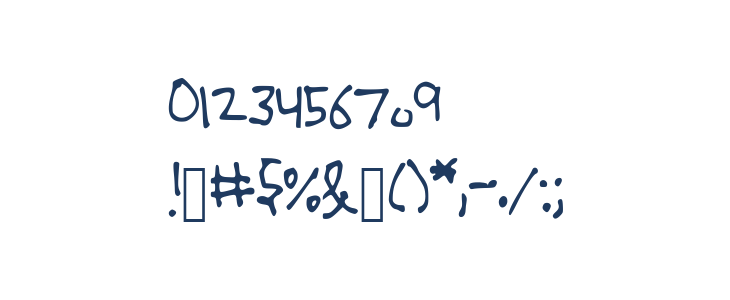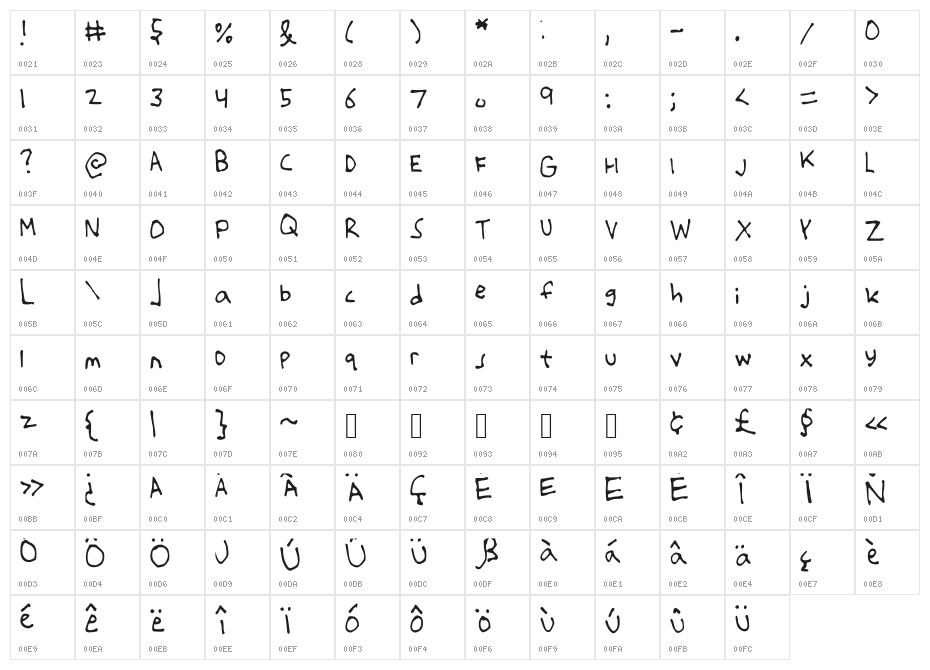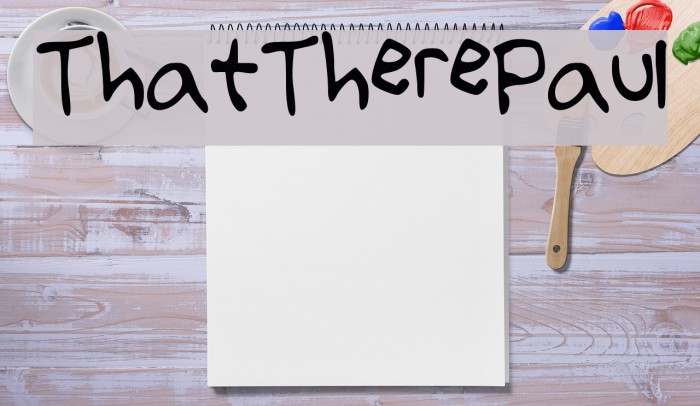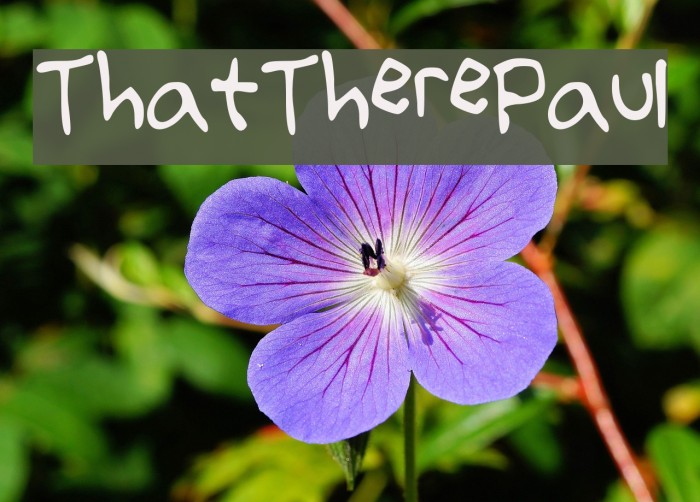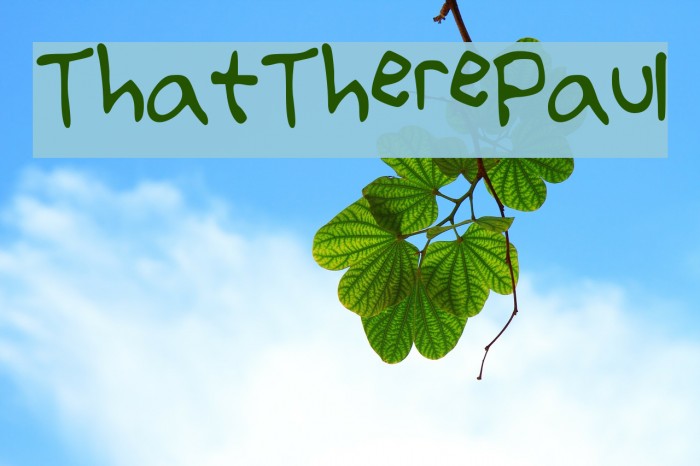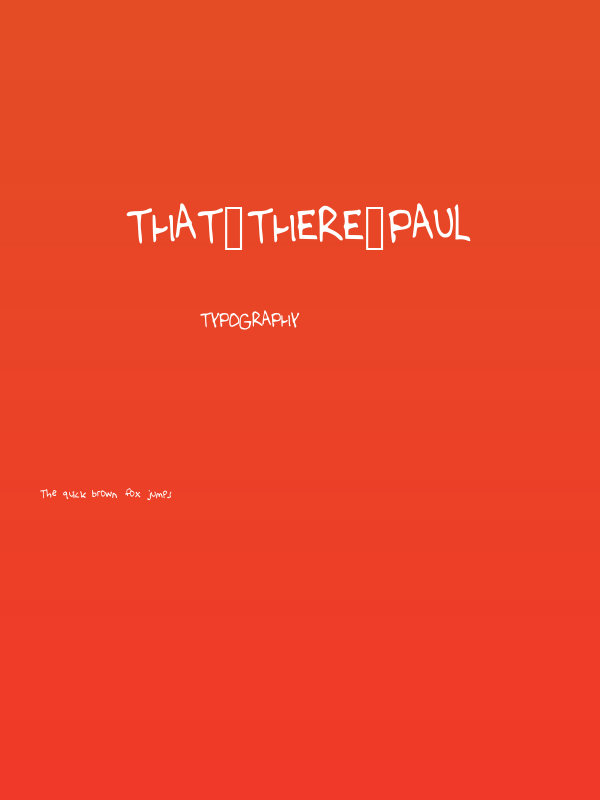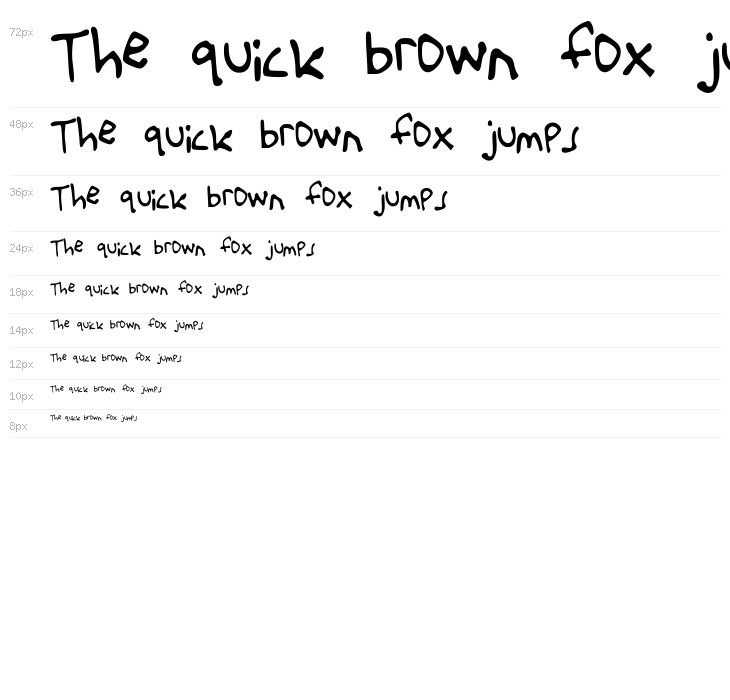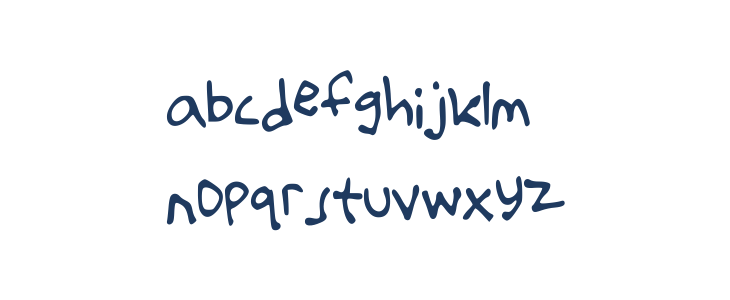
That_There_Paul Font
| Gesamtstil | Casual, Playful |
| Anwendungsfall | Headlines, Informal text, Creative projects |
| Vorgeschlagene Projekte | This font is ideal for children's books, casual invitations, comic strips, and any project that requires a personal, informal touch. |